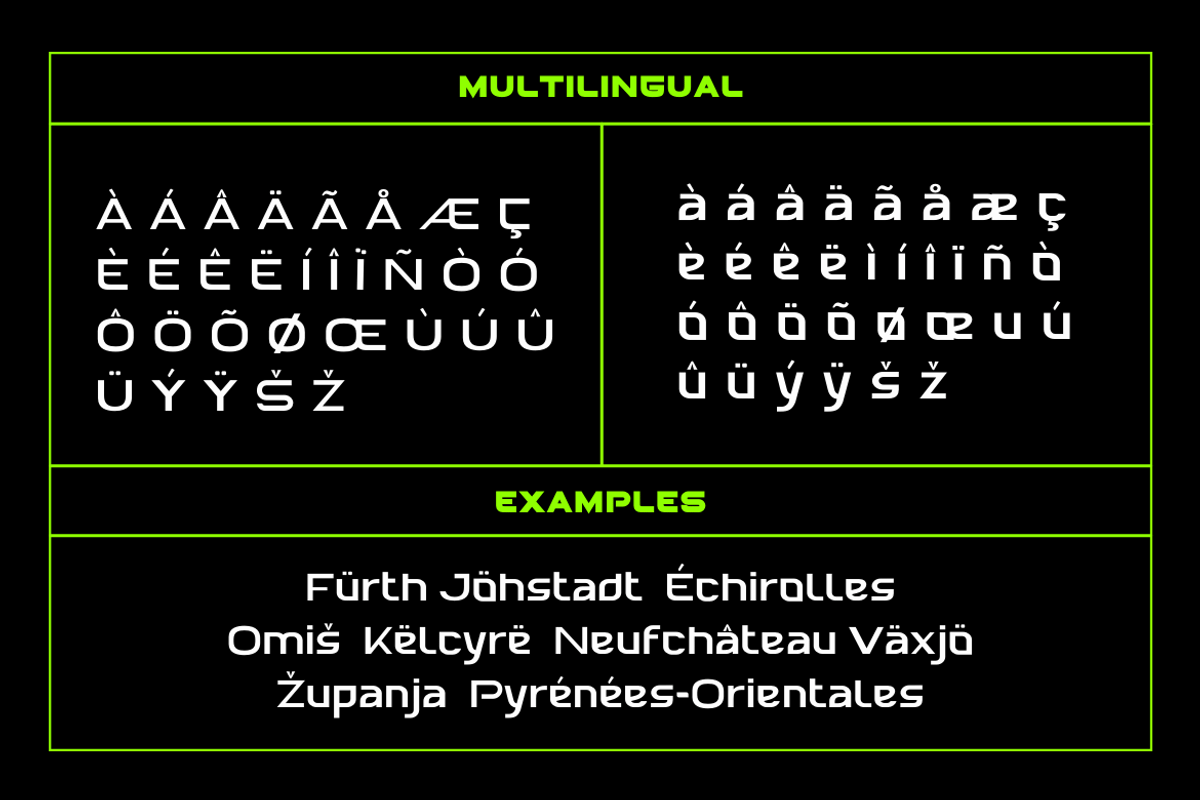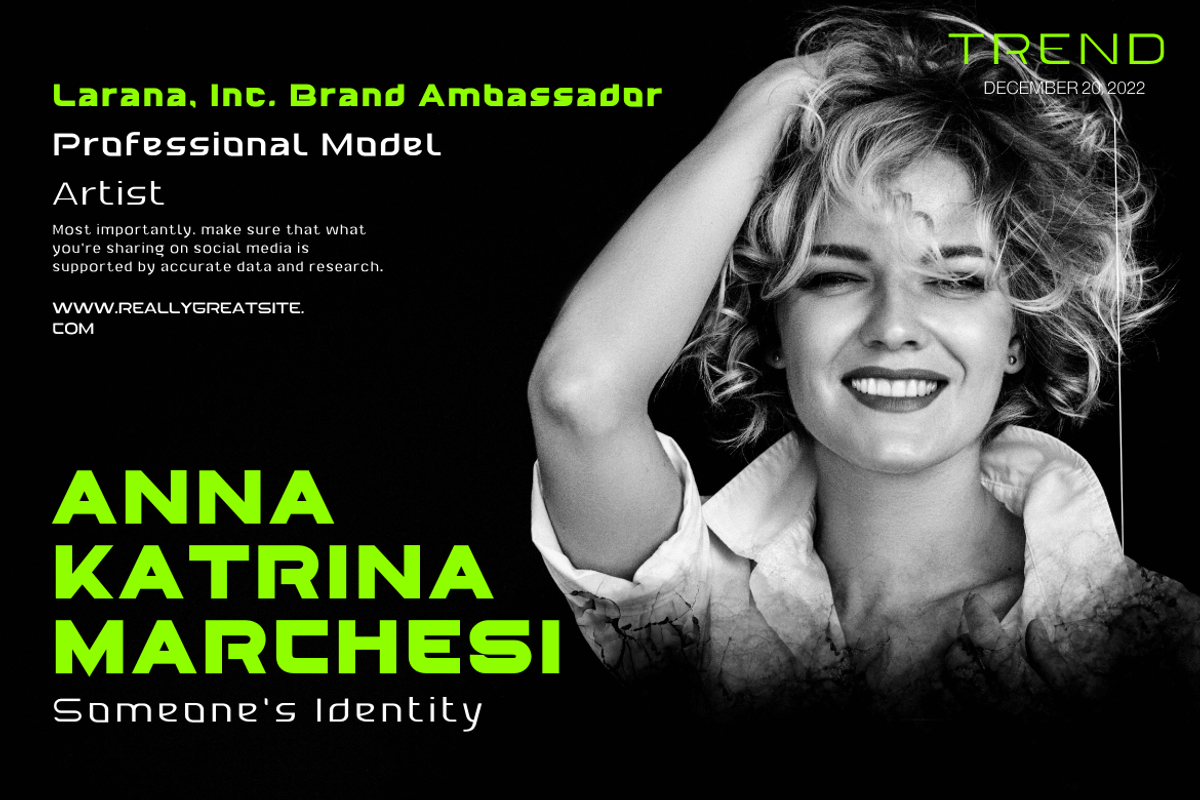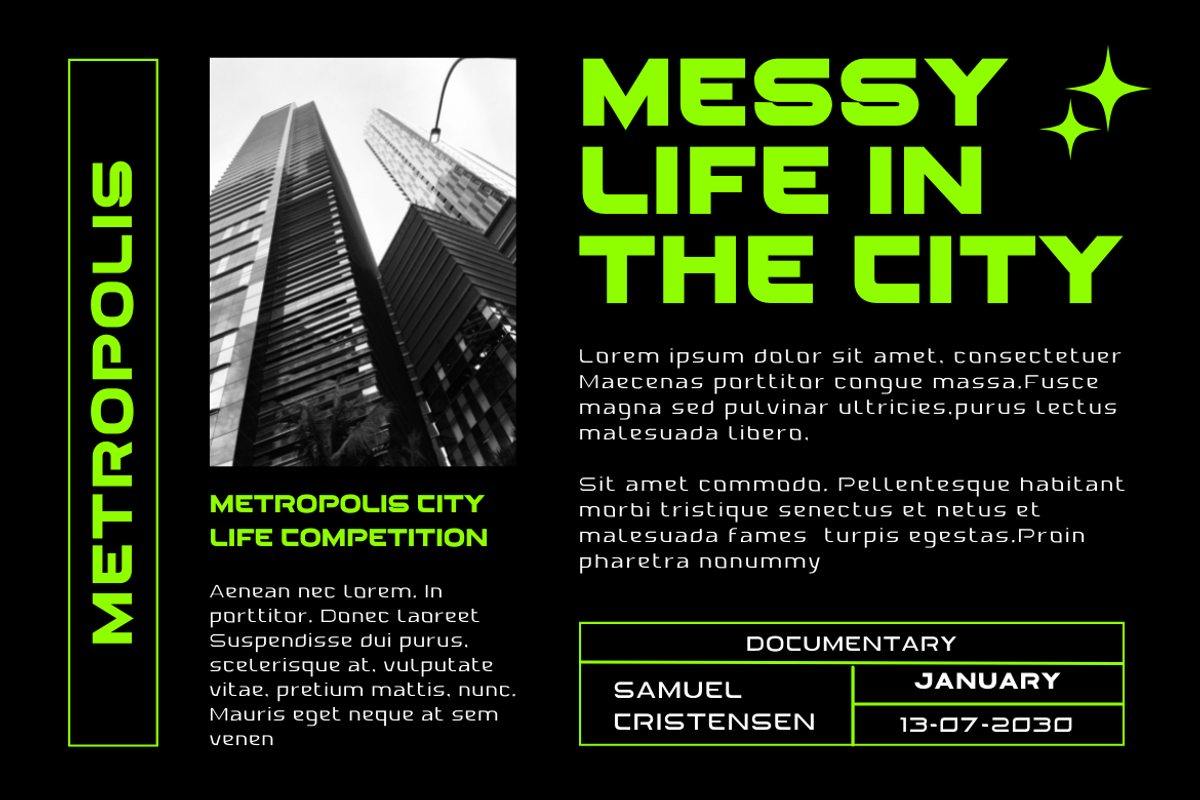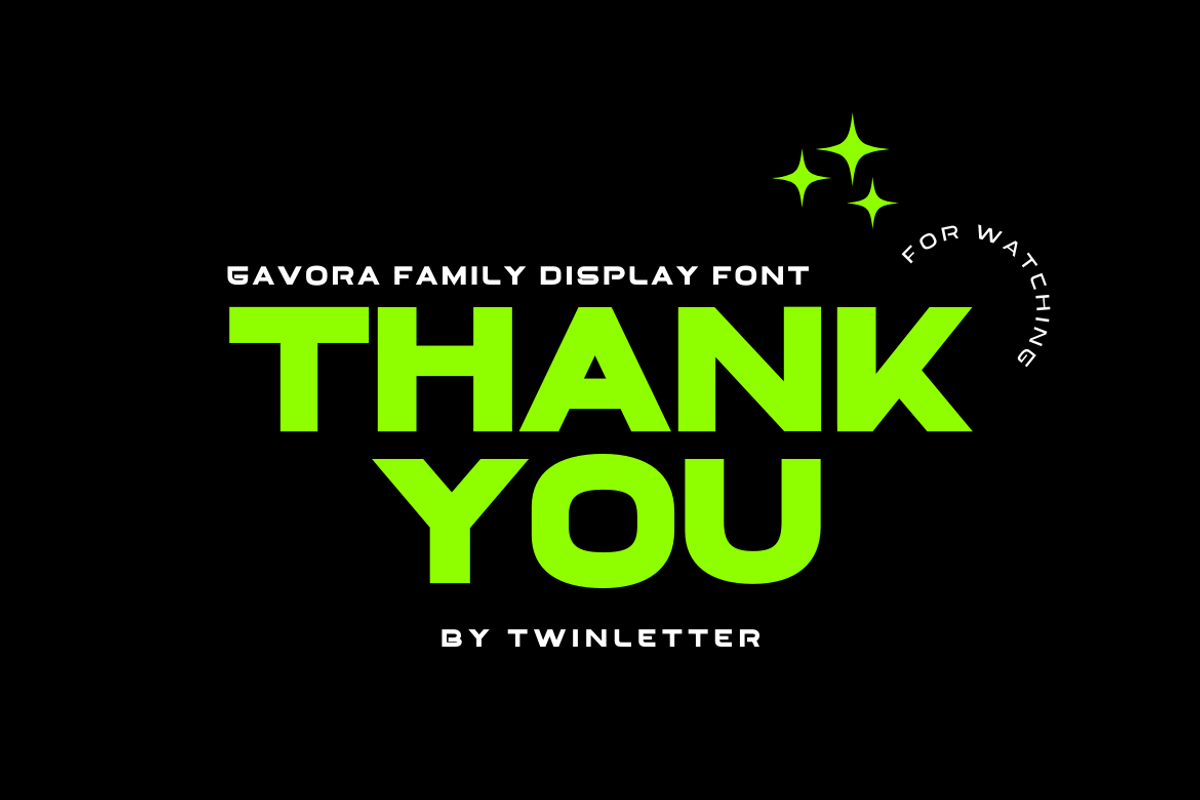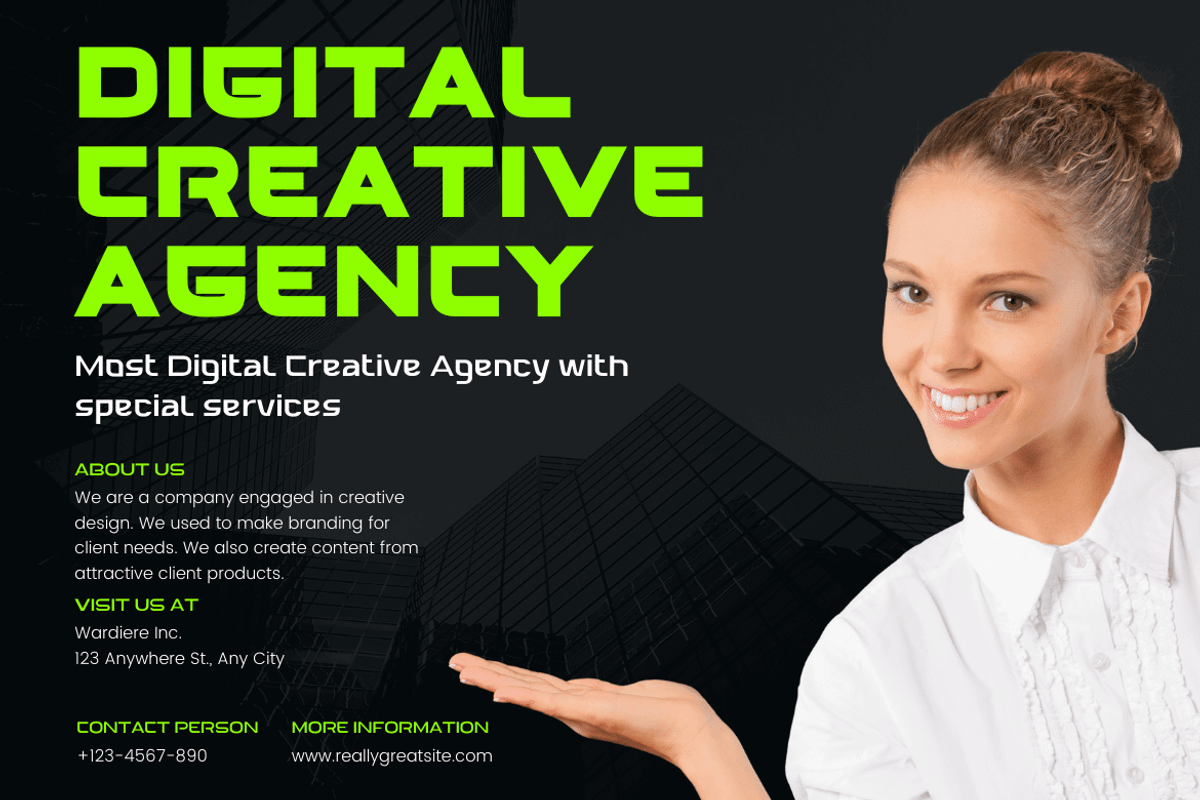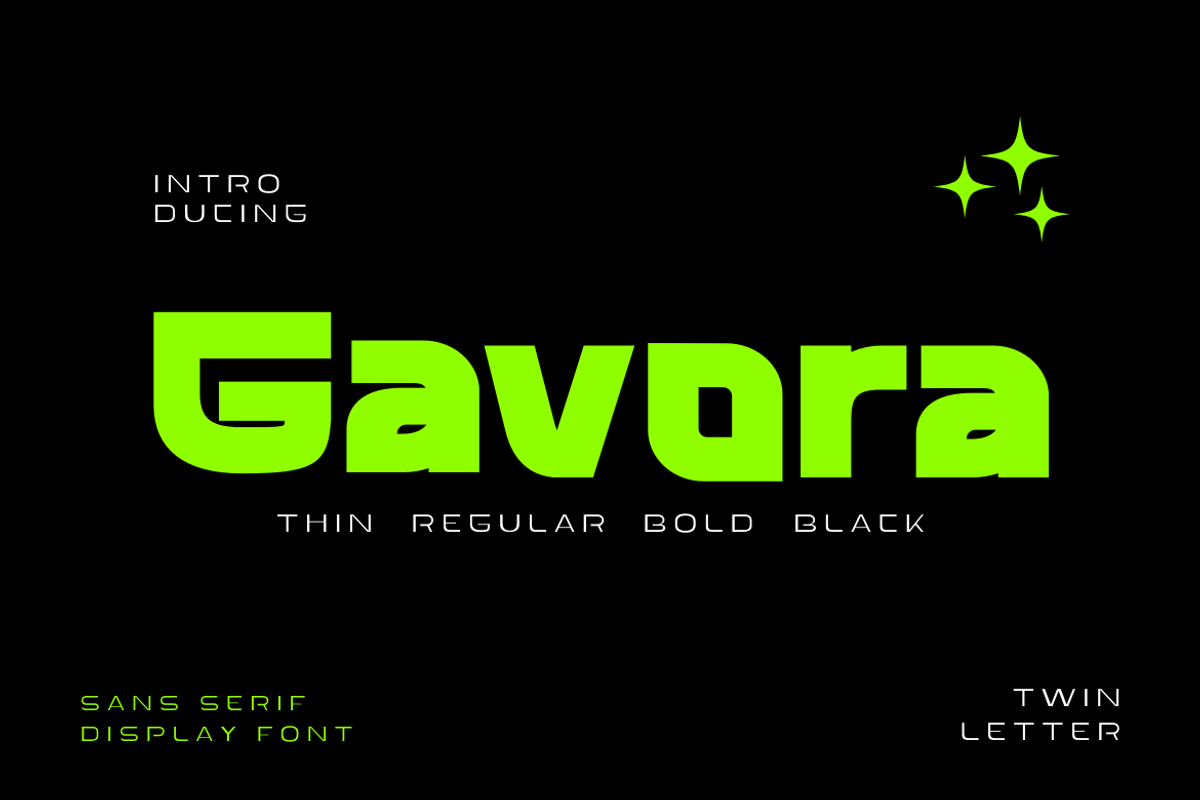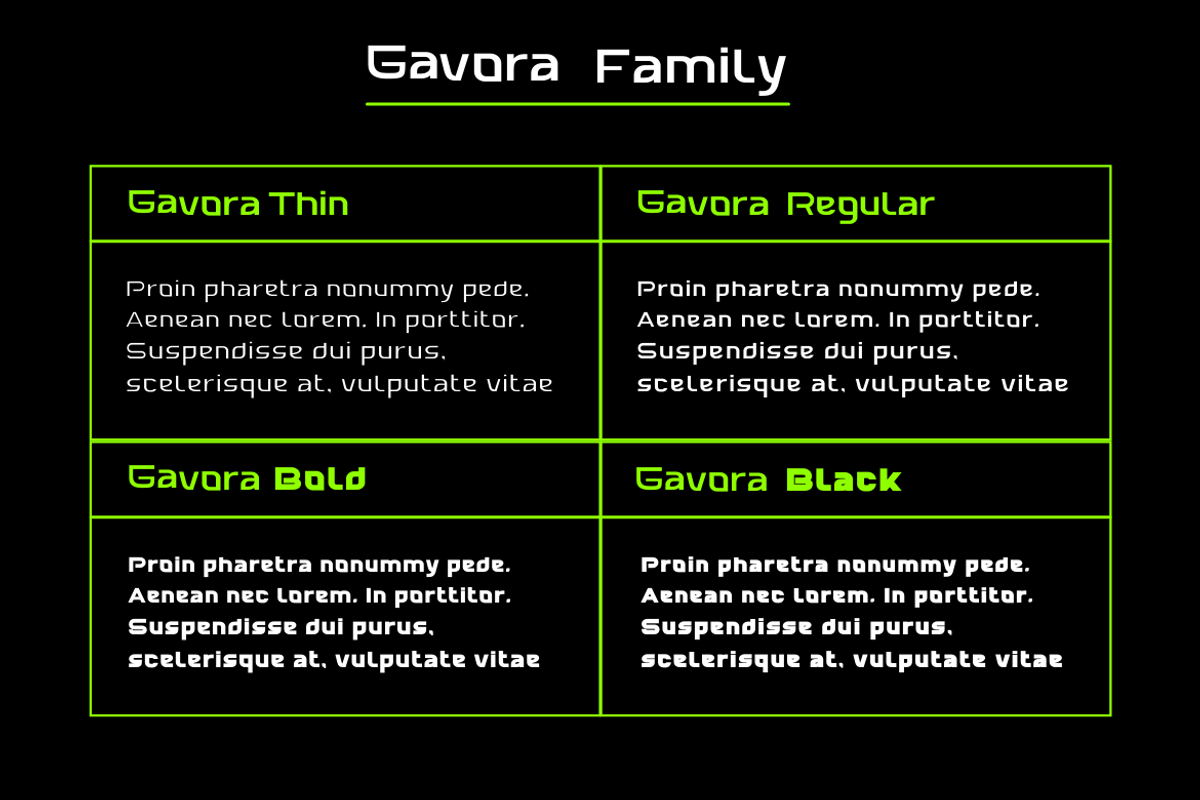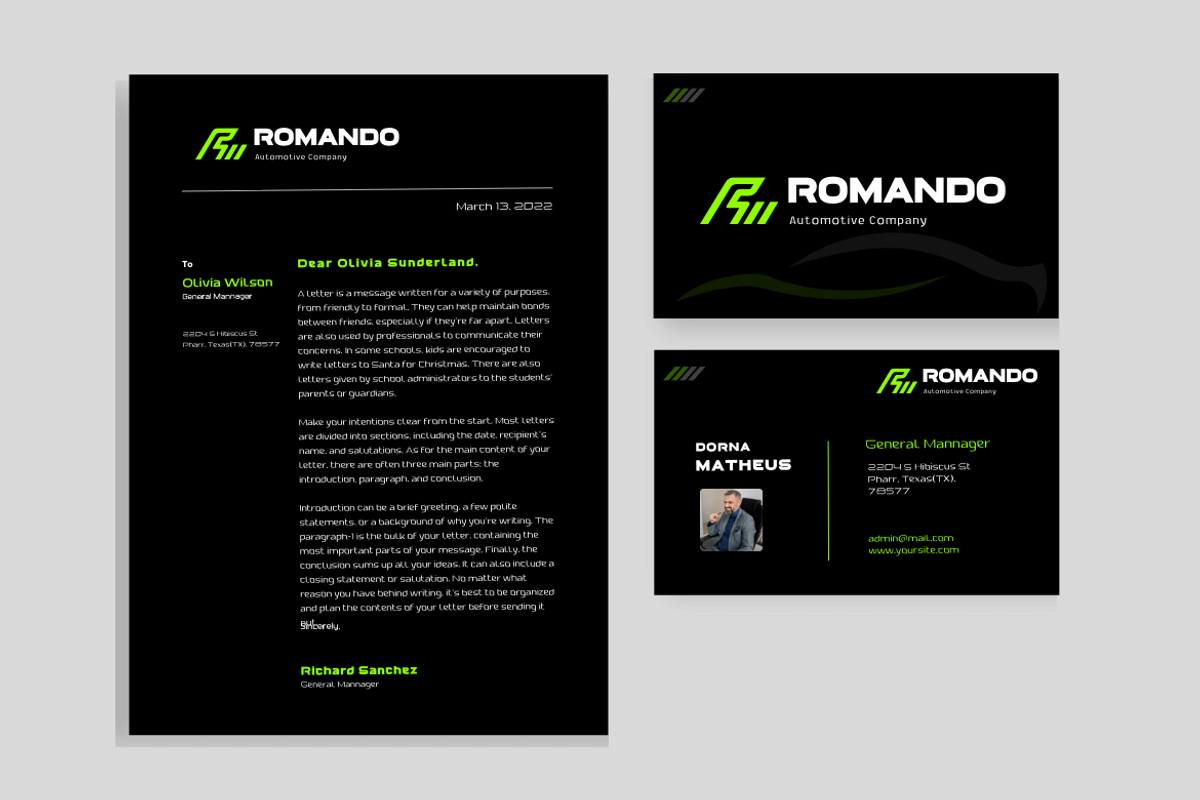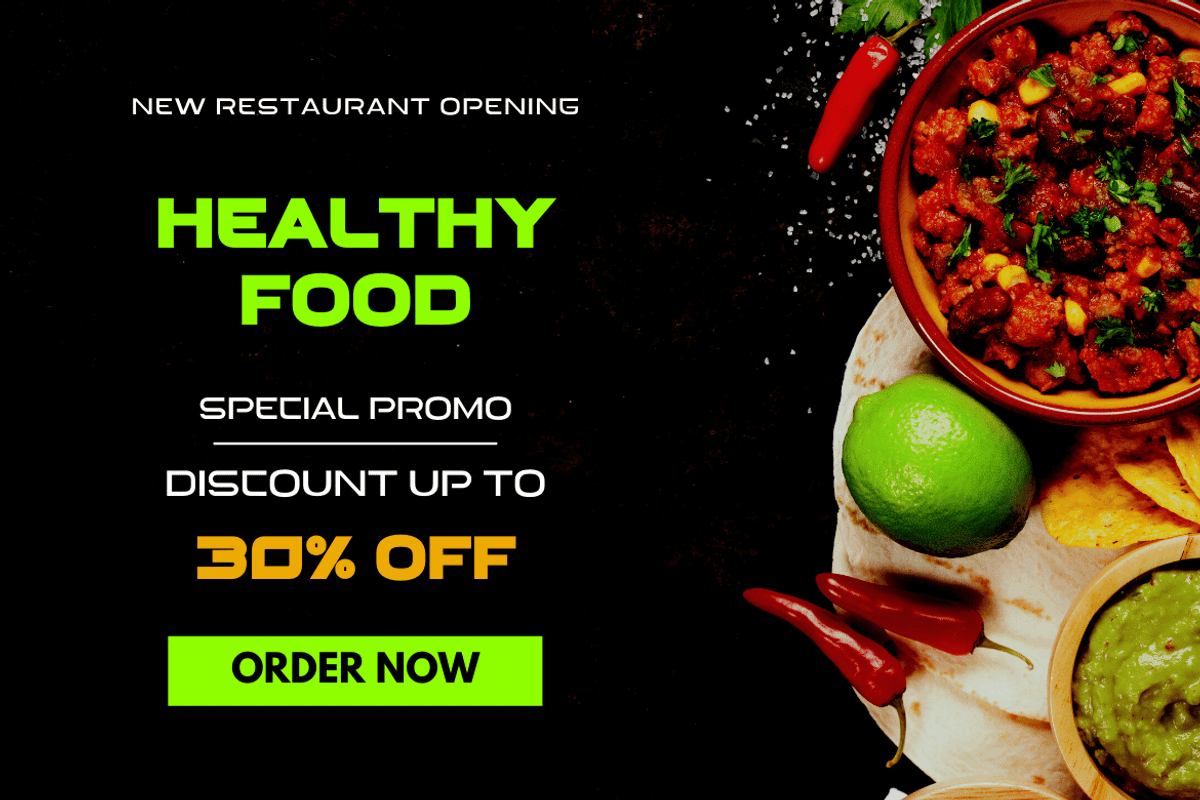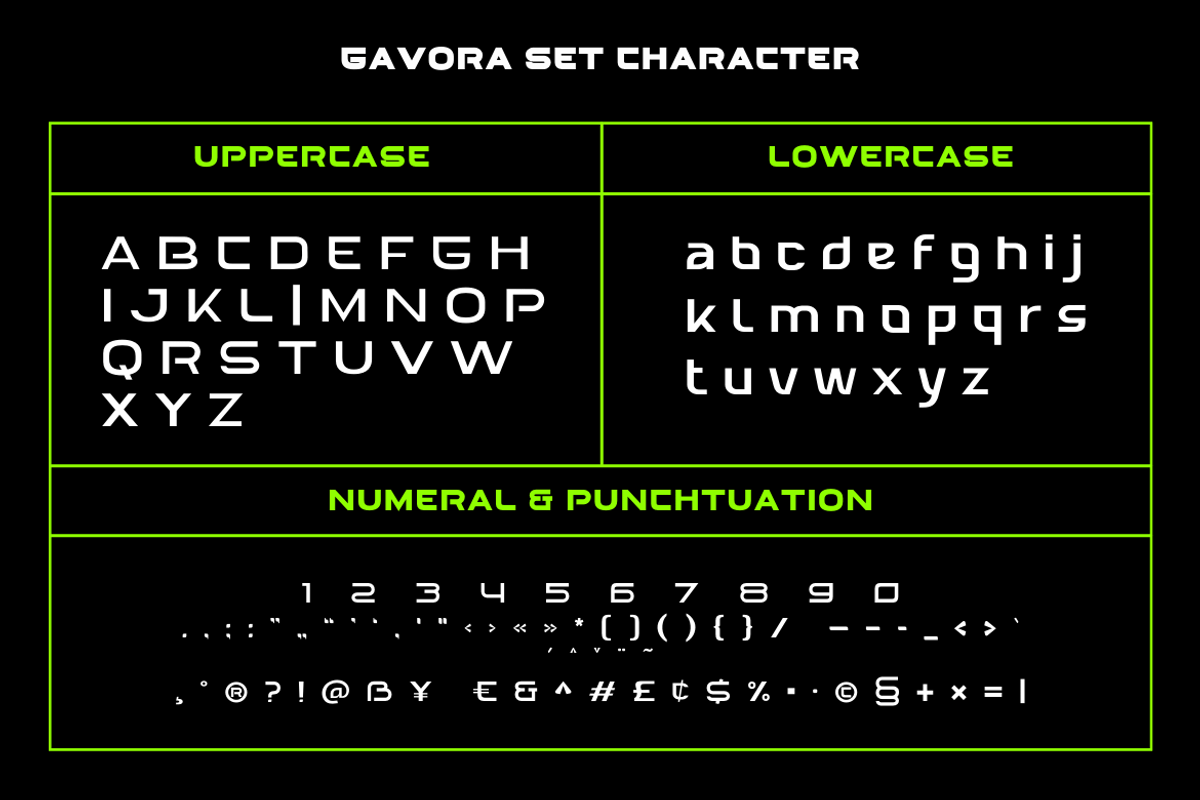
Gavora
Introducing the Gavora sans serif font. Modern strokes are the result of the harmonization of width and height, especially in lowercase letters, to support the best possible readability. Gavora Sans’ goal is to become a universal weapon not only because it works well in headlines, sorts, and long copy, but also because of its subtle neutrality. So that it creates a proportional text.